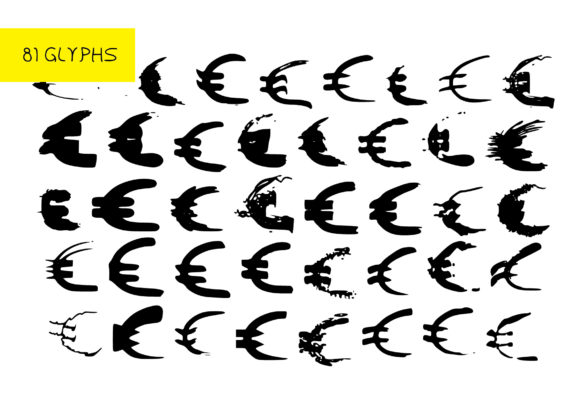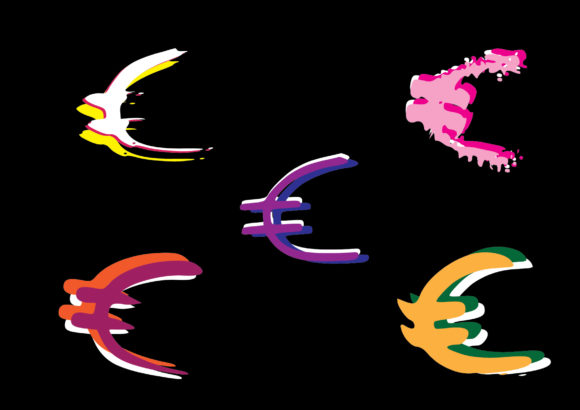
Introducing BM Graphics – Euro Symbol Font: A Playful Dingbats Font
Are you tired of using the same old fonts for your designs? Look no further! BM Graphics is excited to introduce the Euro Symbol Font, a stunning dingbats font that is sure to capture your heart with its playful look and feel. This font is a must-have for designers and crafters who want to add a touch of personality to their work.
What is Euro Symbol Font?
Euro Symbol Font is a unique dingbats font that contains 81 glyphs, each carefully crafted to provide a fresh and exciting way to add visual interest to your designs. The font is perfect for a variety of projects, from crafting and scrapbooking to graphic design and digital art.
Key Features of Euro Symbol Font
• 81 Glyphs: Euro Symbol Font includes 81 unique glyphs, each designed to provide a fun and creative way to enhance your designs.
• Playful Look and Feel: The font has a playful and whimsical feel, making it perfect for designers and crafters who want to add a personal touch to their work.
• Dingbats Font: Euro Symbol Font is a dingbats font, which means it’s perfect for adding visual interest to your designs without overpowering the text.
Euro Symbol Font is perfect for designers and crafters who want to add a touch of personality to their work. The font is ideal for a variety of projects, including:
• Crafting and Scrapbooking: Add a personal touch to your scrapbook pages and craft projects with the Euro Symbol Font.
• Graphic Design: Use the font to add visual interest to your graphic designs, from brochures and flyers to social media graphics and more.
• Digital Art: The font is perfect for digital artists who want to add a touch of whimsy to their artwork.
Why Choose Euro Symbol Font?
There are many reasons why Euro Symbol Font stands out from the crowd. Here are just a few:
• Unique and Creative: The font is unique and creative, providing a fresh way to add visual interest to your designs.
• High-Quality: The font is high-quality and easy to read, making it perfect for a variety of projects.
In conclusion, Euro Symbol Font is a stunning dingbats font that is sure to capture your heart with its playful look and feel. With 81 glyphs to choose from, this font provides a fresh and exciting way to add visual interest to your designs. Whether you’re a designer or crafter, Euro Symbol Font is a must-have font solution that is sure to enhance your work.